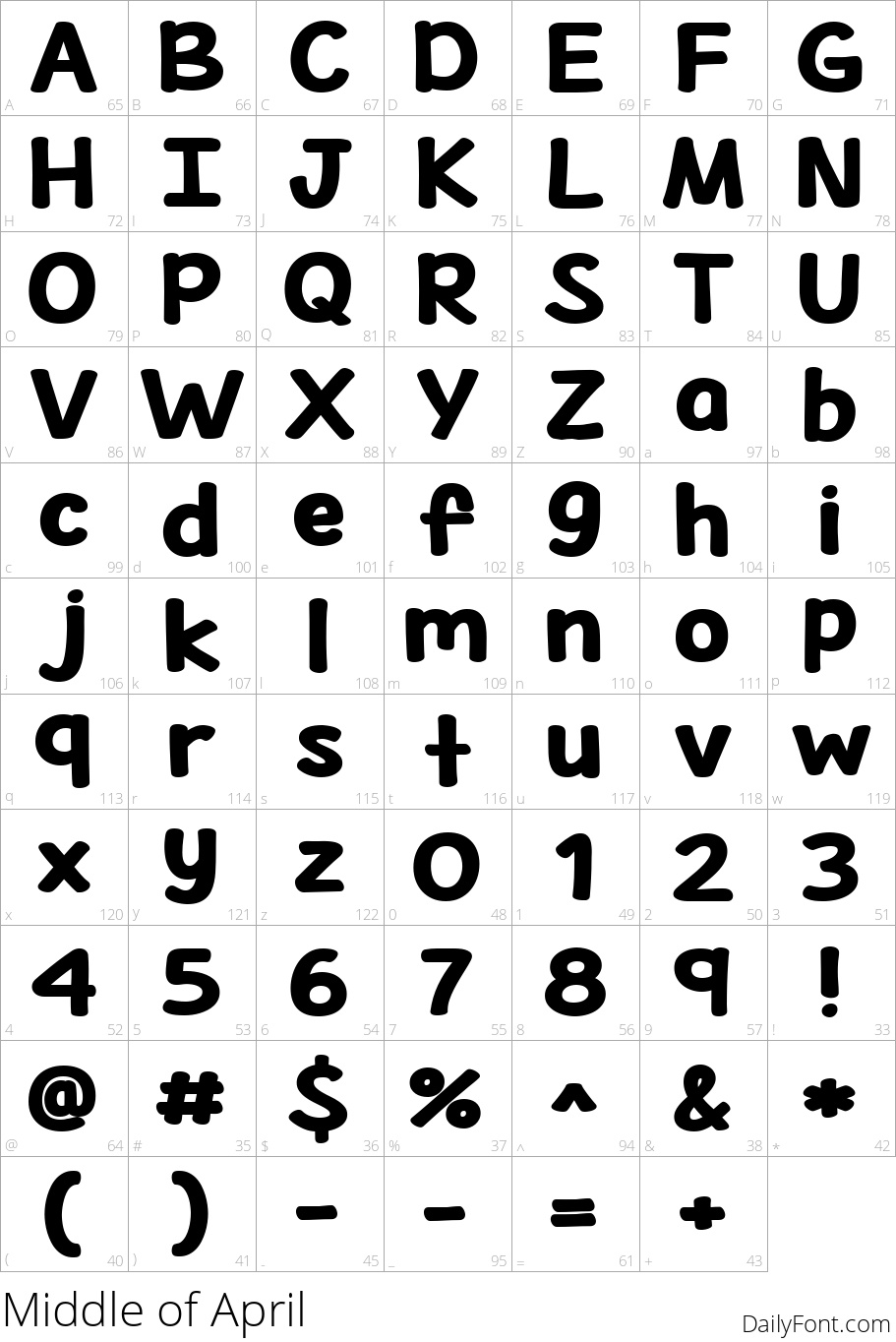
Middle of April
Middle of April is a bold font that captures the essence of spring. With its playful strokes and lively energy, this font is ideal for seasonal designs that require a touch of charm. Whether you're creating vibrant greeting cards, refreshing branding materials, or inviting social media graphics, Middle of April brings a sense of warmth and joy to your projects.
Designed to engage and resonate with audiences, this font reflects the blossoming spirit of the season. Its unique letterforms are perfect for evoking feelings of optimism and renewal, making it a must-have for designers looking to breathe life into their work. Choose Middle of April to captivate your viewers and create designs that spring to life!